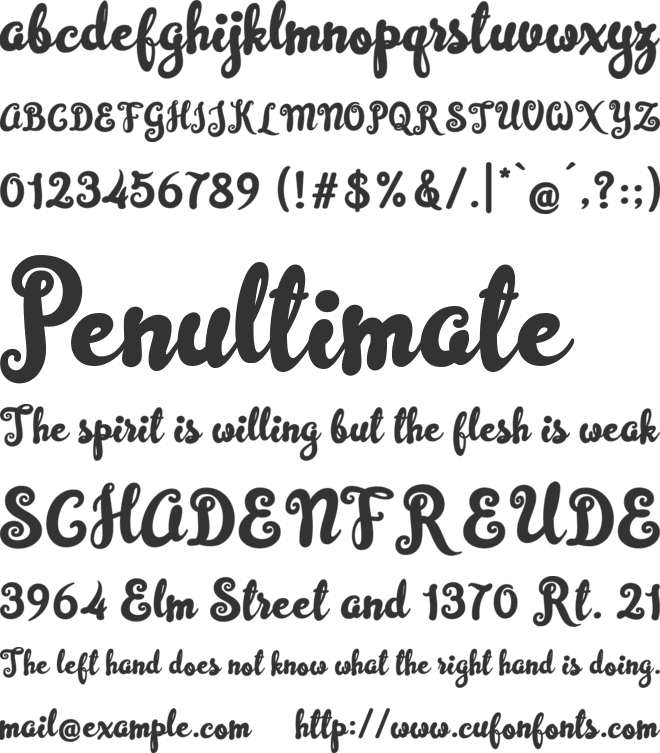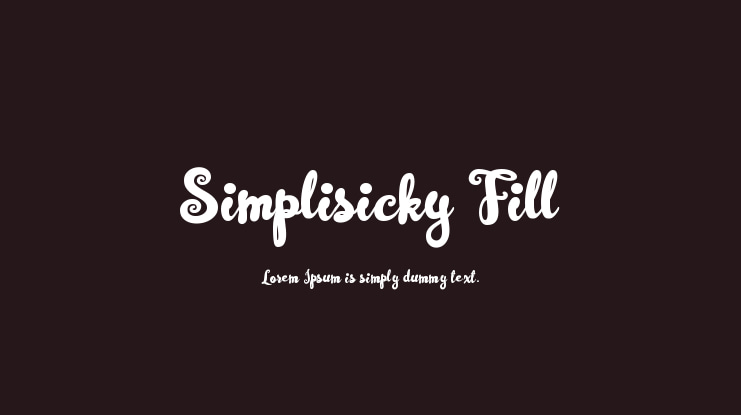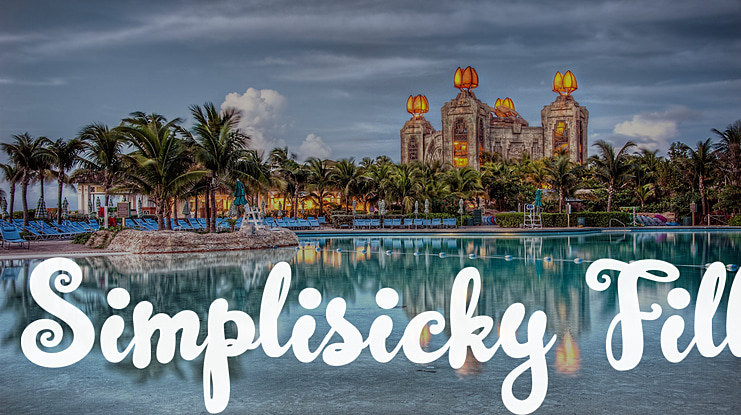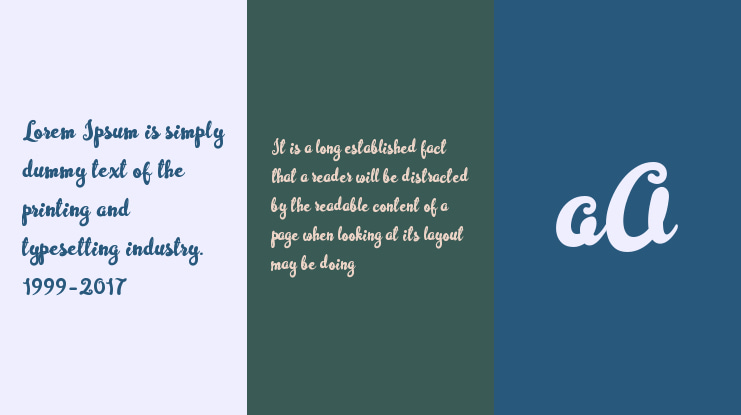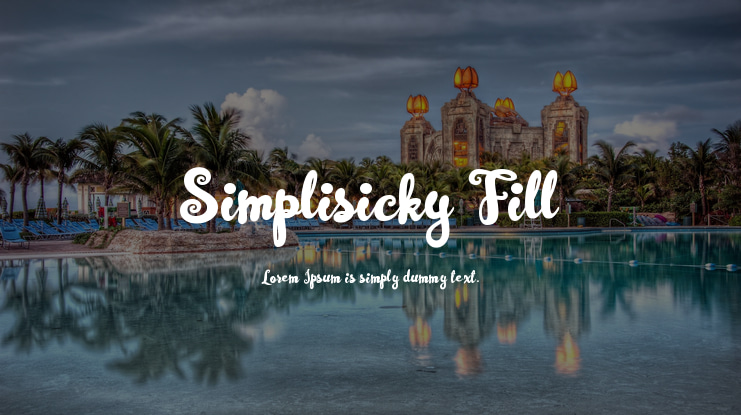
I am really like this 3D script style and was big challenge for me to convert this into font, and now I success make it happen.
The greatness of this font:
- First 3D script style as a font.
- This font contain 450 glyphs and supported to all basic Latin character, Eastern Europe and Turkish language.
- 50 portable lowercase swash, it mean can create 50*26=1.300 extra alternate characters.
- To avoid of difficulty of use swash, I feature it with so many shortcuts to make access alternate character be so fast and easy! (Activate Contextual Alternates feature)
Please make sure you place fill version at bottom and stroke at the top.
- Activate Stylistic Alternates for auto substitution to initial, medial and final letter. -
- Type ">>>" after character for select end swash tail (25 variant) (activate Contextual Alternates).
- Type "<<<" before character to select swash tail (25 variant) (activate Contextual Alternates).